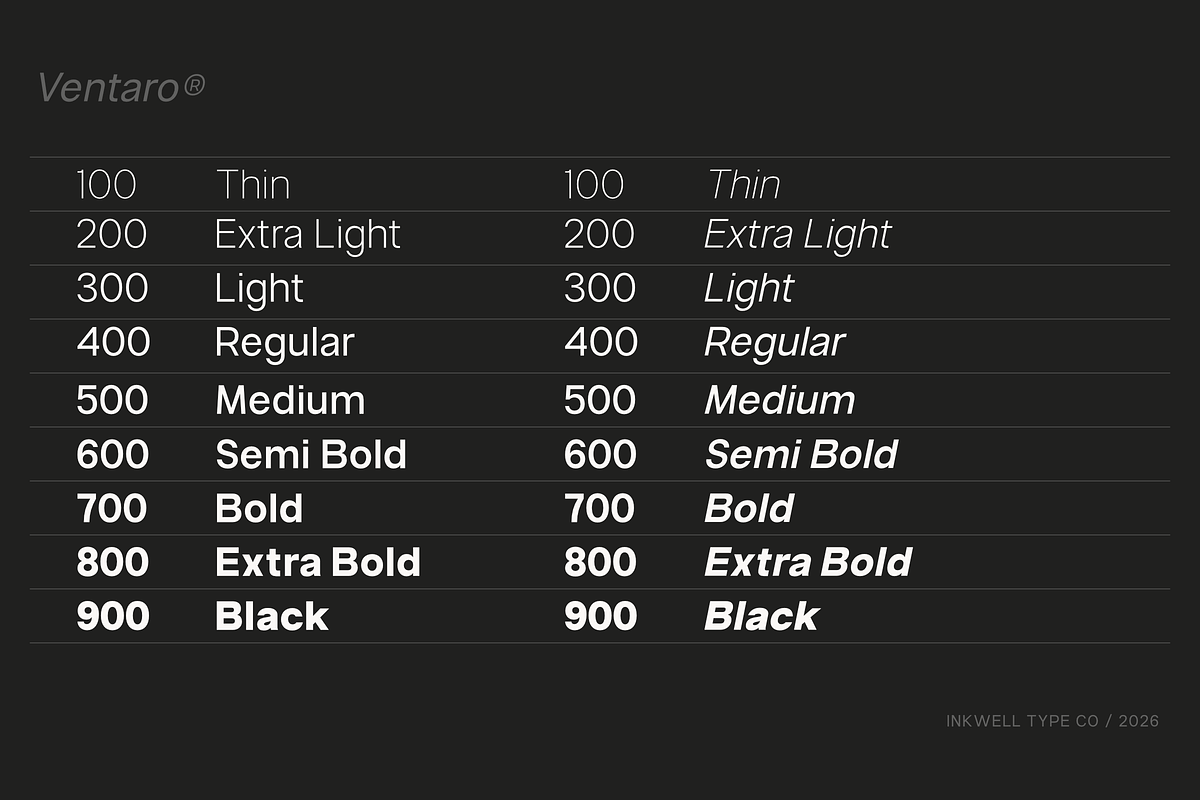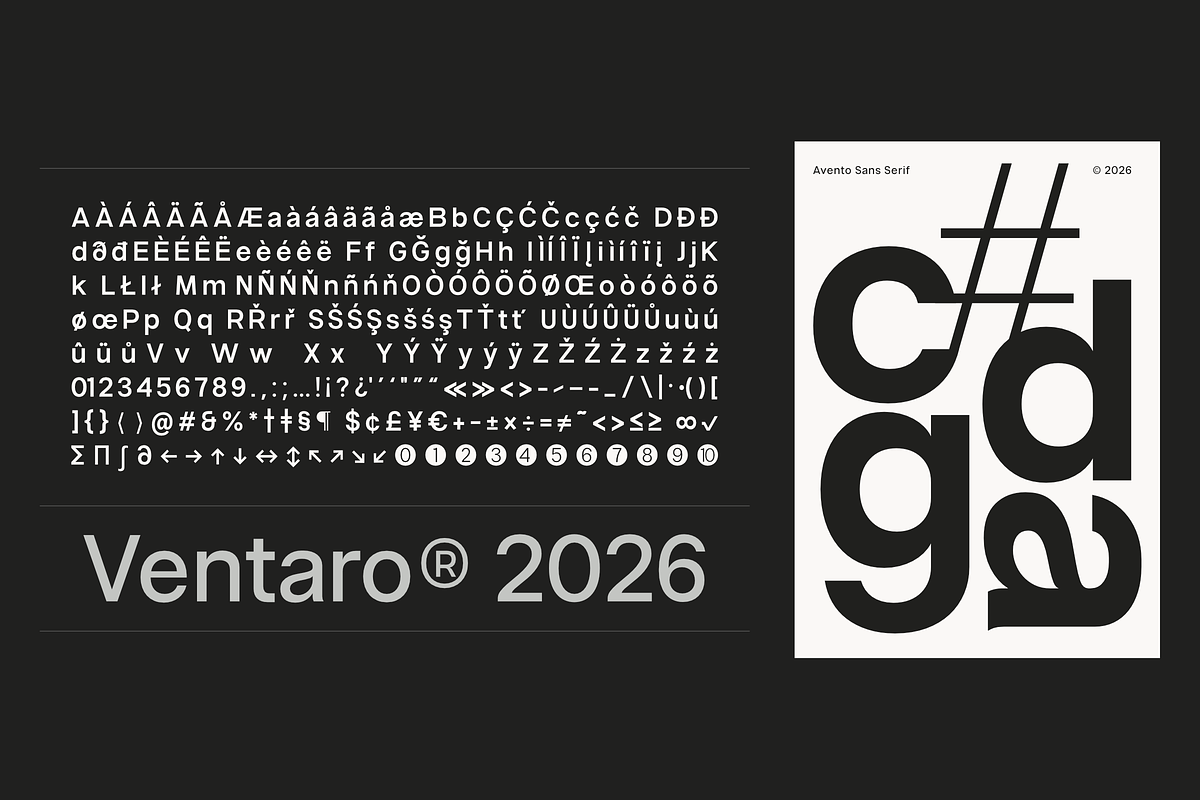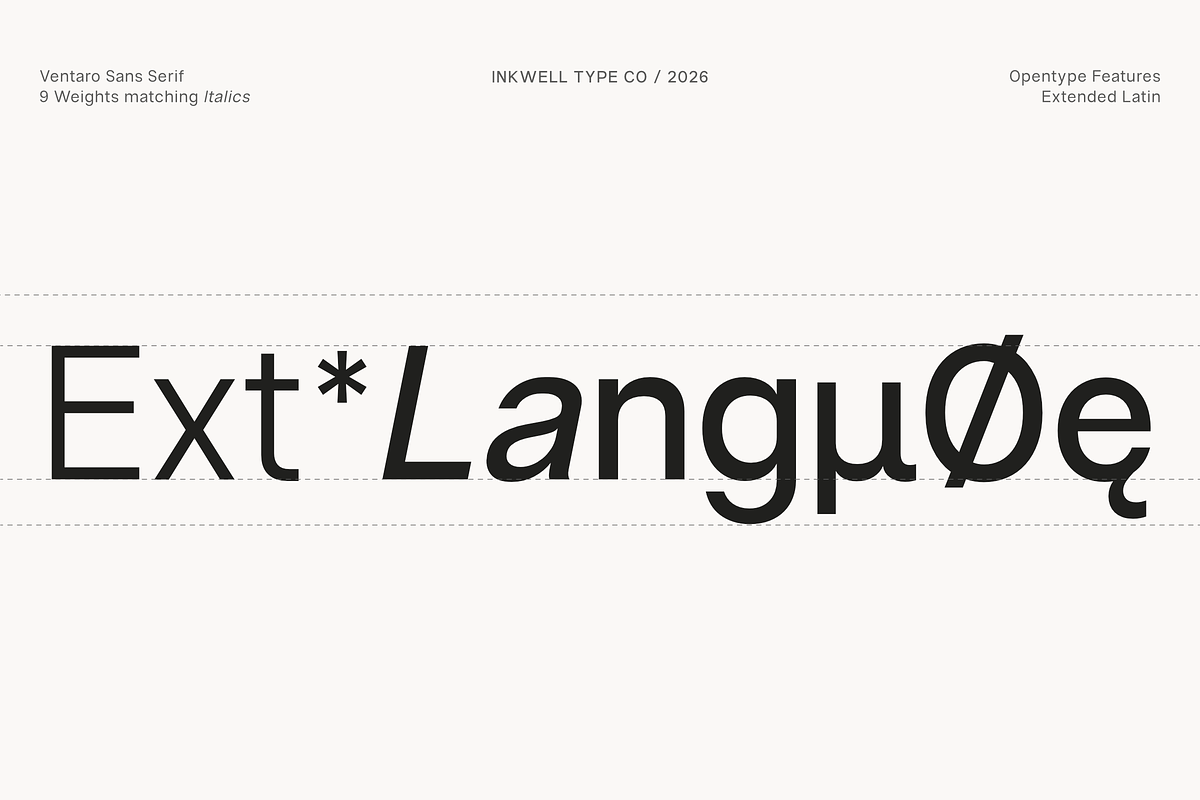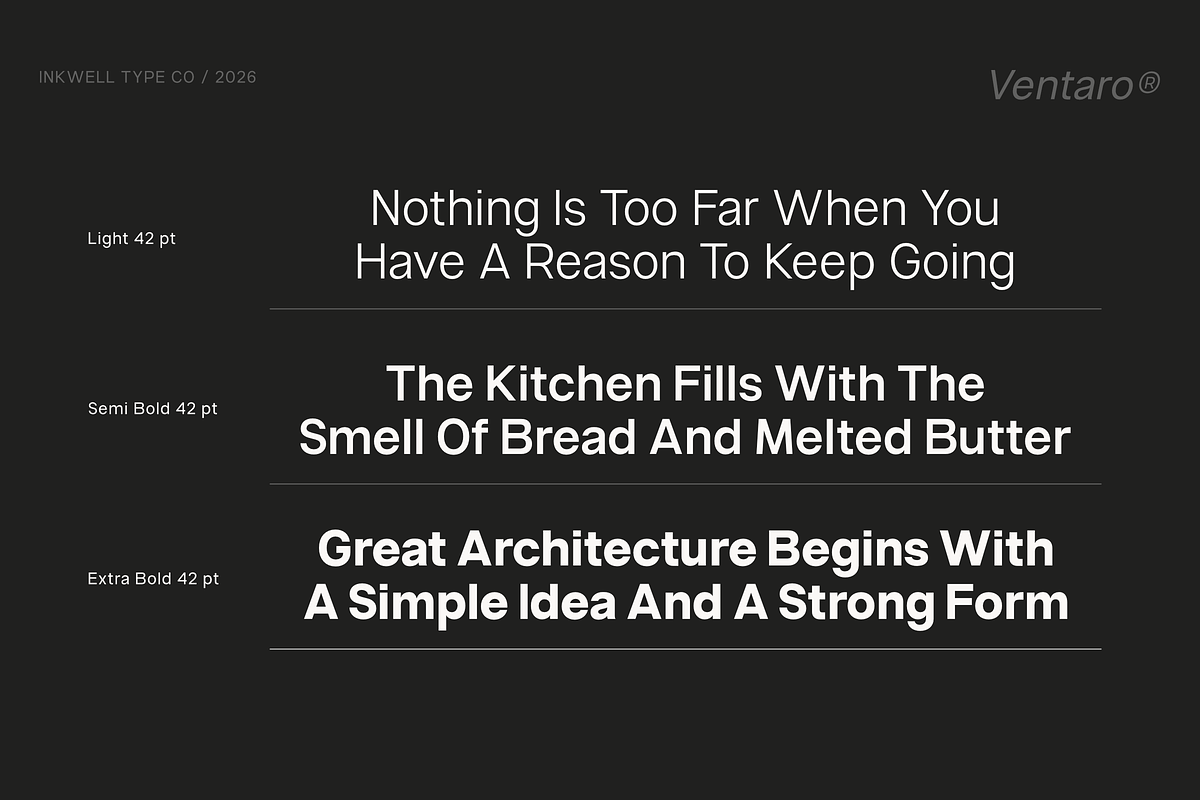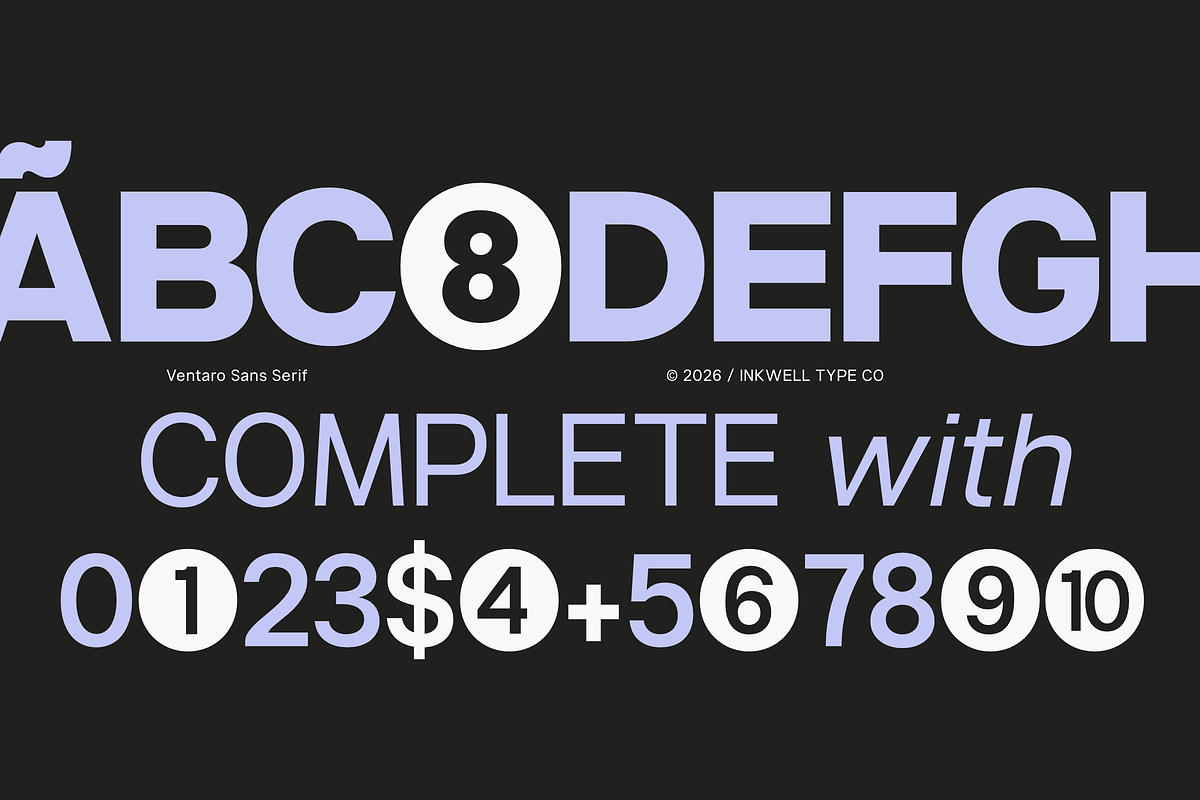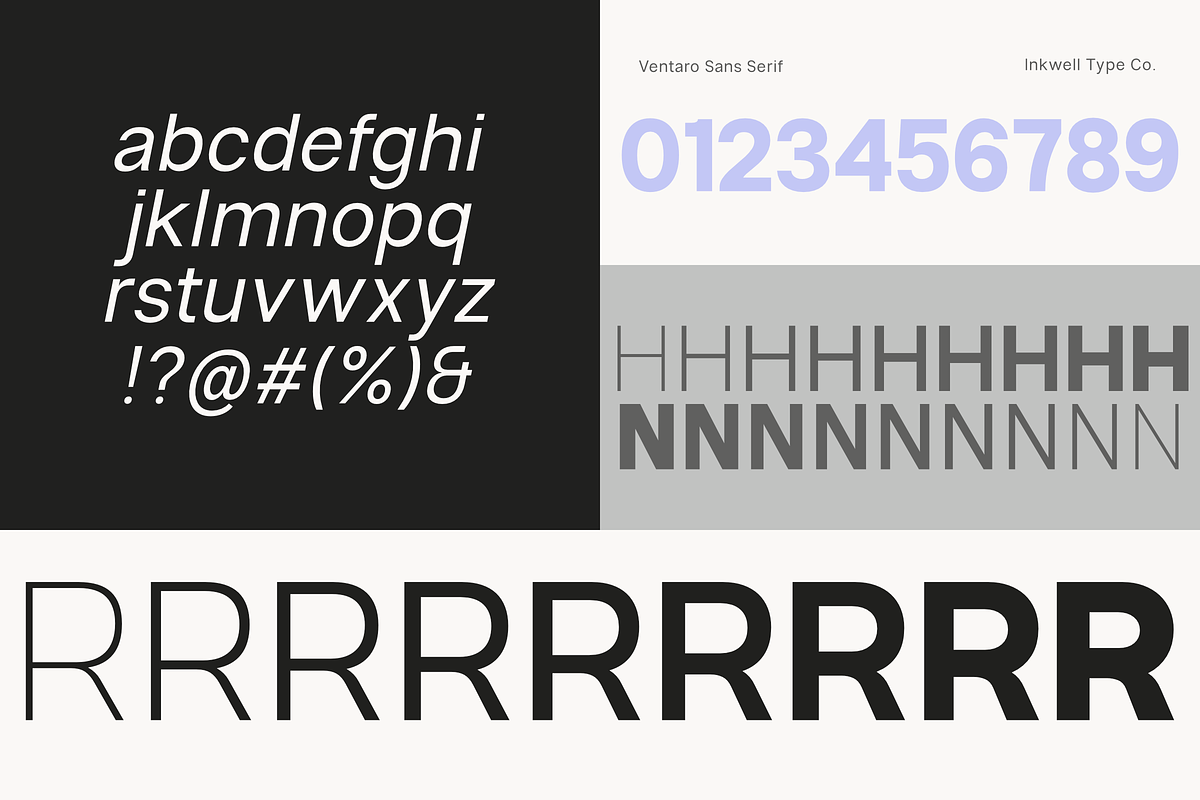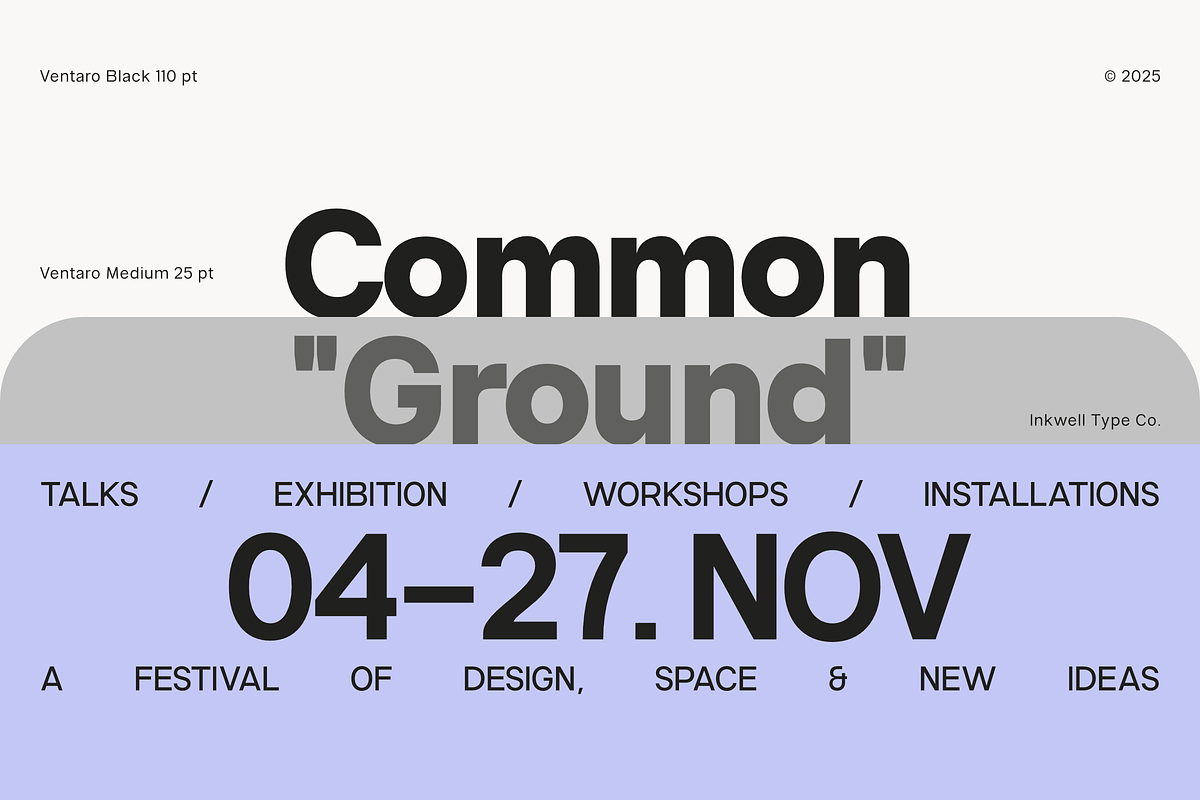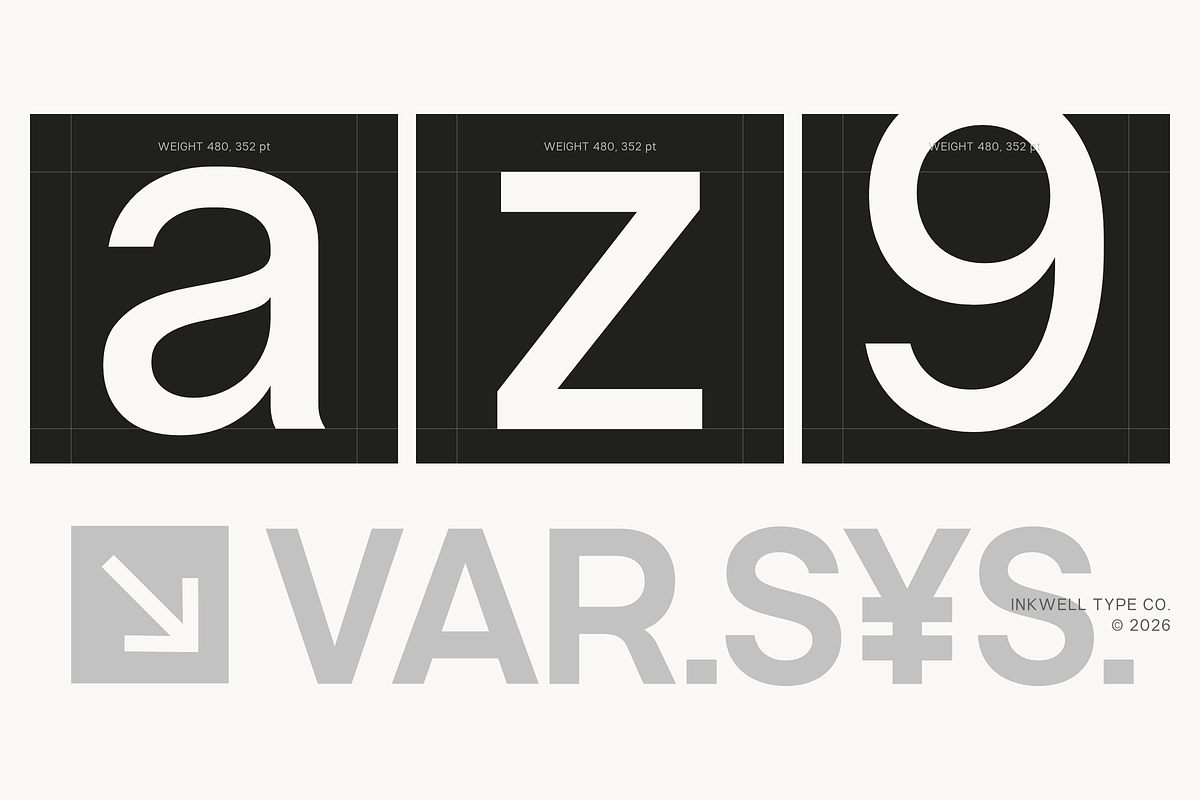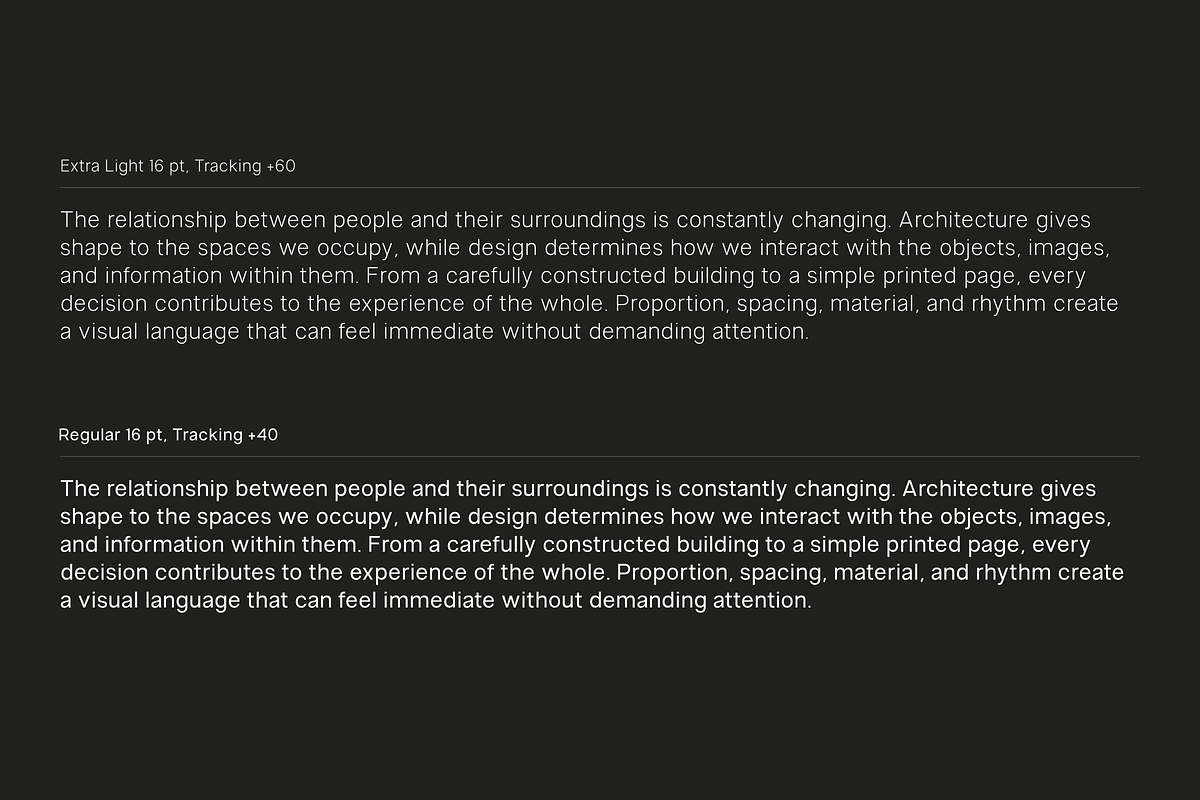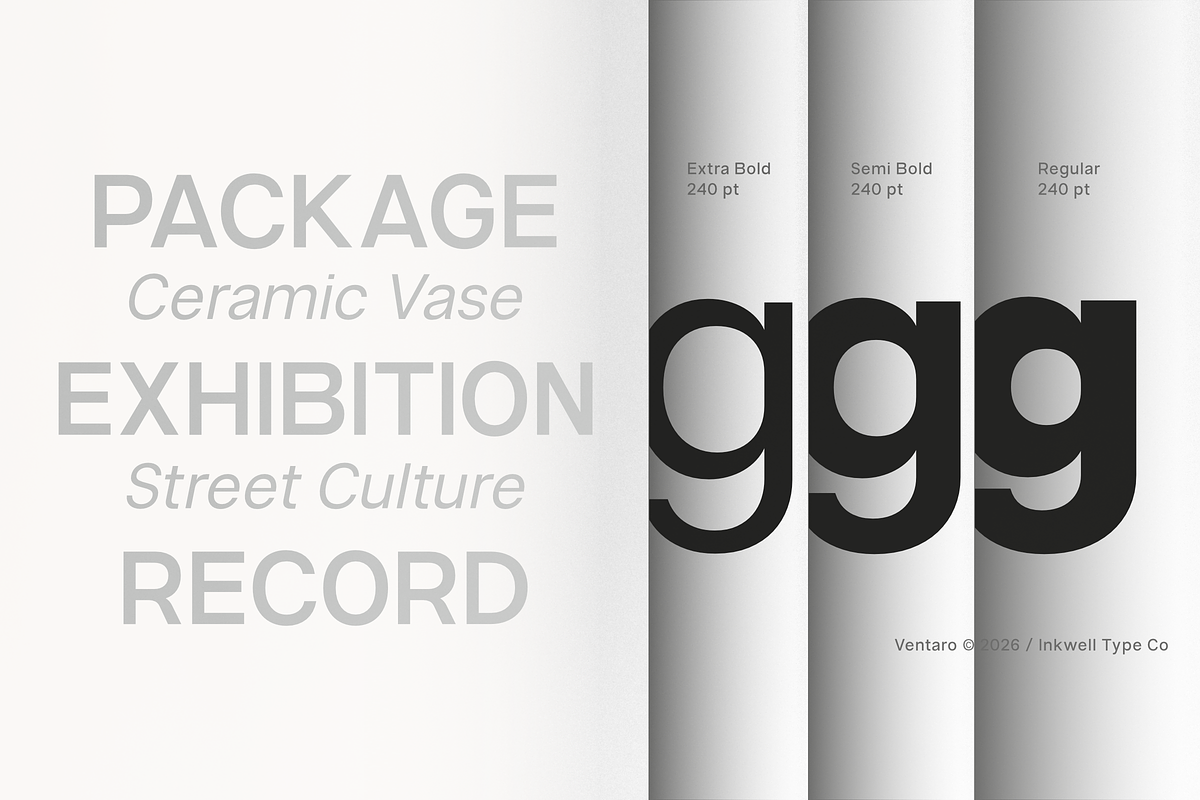
Ventaro — Extended Sans Serif
VENTARO — EXTENDED VARIABLE SANS SERIF
Ventaro is a contemporary extended sans serif typeface designed to bring a clean, confident, and sophisticated character to modern typography.
Built around wide proportions and a refined geometric structure, Ventaro balances strong visual presence with a clean and versatile appearance. Its extended forms make it especially effective for headlines, titles, editorial layouts, branding, and large-scale display typography.
The family includes 9 weights with matching italic styles, giving designers a broad range of typographic possibilities—from light and elegant compositions to bold, impactful statements.
With 400+ glyphs and extended character support, Ventaro is designed to work across a wide range of creative projects and visual identities.
• 9 Weights • Italic Styles • 400+ Glyphs • Extended Character Set • Variable Font • Uppercase & Lowercase • Numerals & Punctuation • Professional Kerning • OpenType Support
Ventaro is made for designers looking for a modern sans serif with width, presence, and flexibility.